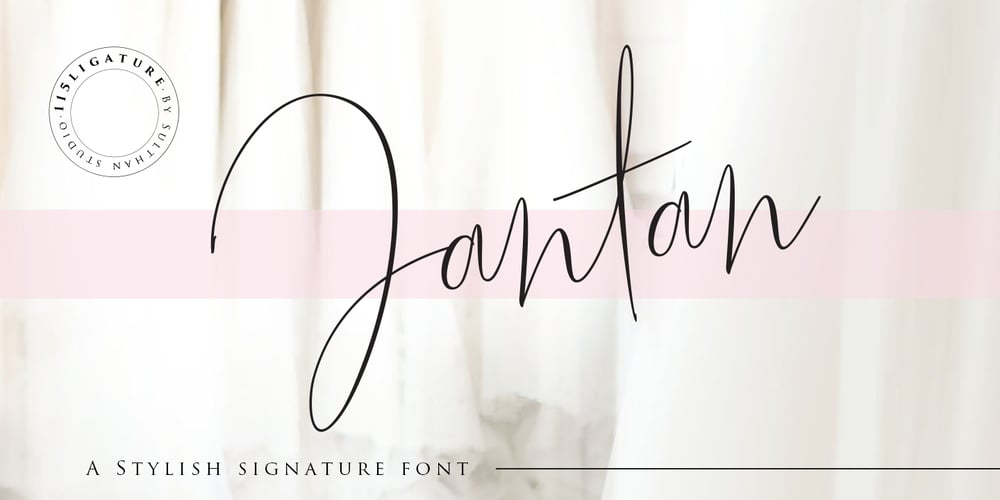
Jantan Font Family was designed by Nasrullah and published by Sulthan Studio. Jantan contains 1 styles and family package options. Jantan is a new fresh & modern script with a handmade calligraphy style, decorative characters and a dancing baseline! So beautiful on invitation like greeting cards, branding materials, business cards, quotes, posters, and more. The alternative characters were divided into several OpenType features such as Stylistic Alternates, and Ligatures. The OpenType features can be accessed by using OpenType savvy programs such as Adobe Illustrator, Adobe InDesign, Adobe Photoshop Corel Draw X version, And Microsoft Word. And this Font has given PUA unicode (specially coded fonts). so that all the alternate characters can easily be accessed in full by a craftsman or designer.